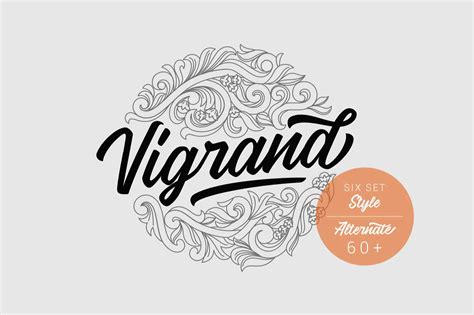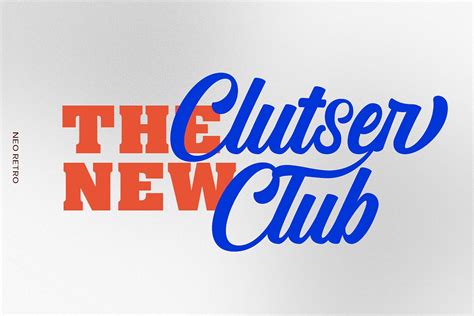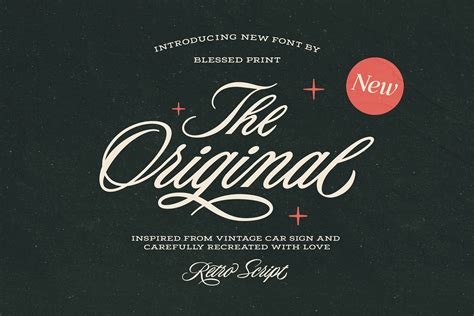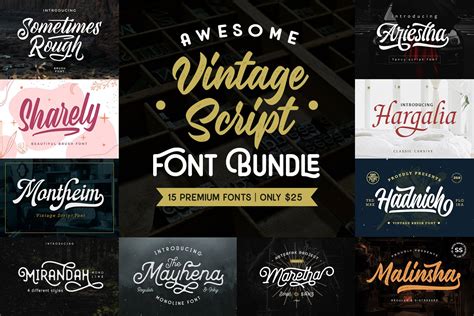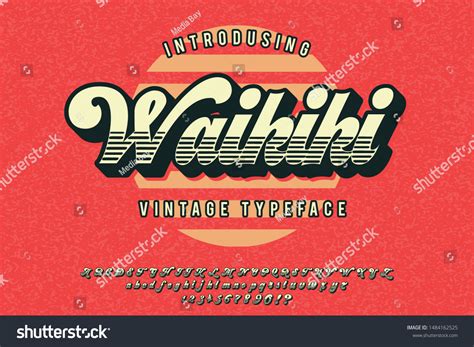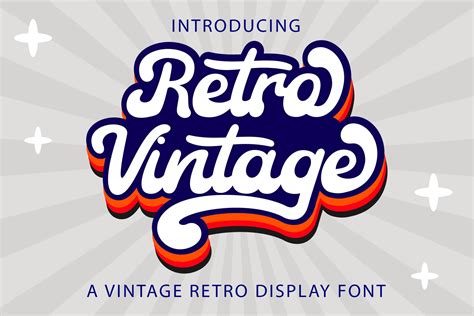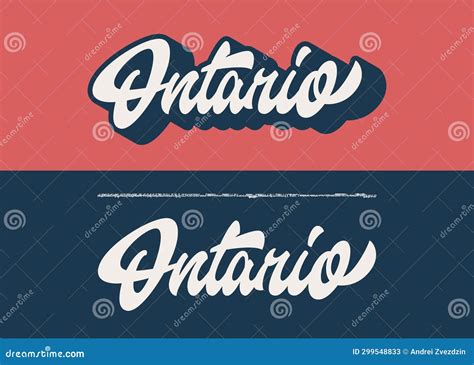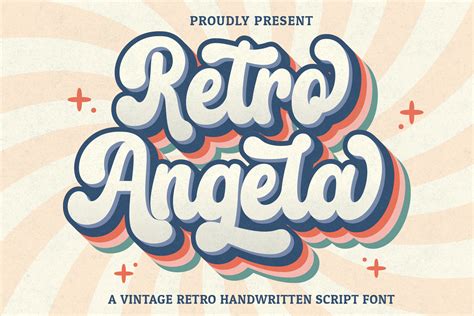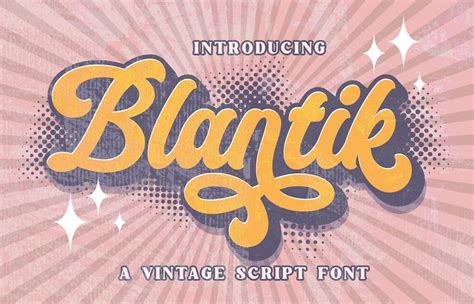
In the vast world of typography, few styles evoke the charm and elegance of a *vintage script font*. These fonts, inspired by the calligraphy and handwriting of bygone eras, bring a touch of nostalgia and sophistication to any design project. Whether you're creating a wedding invitation, a logo, or a vintage-inspired advertisement, a well-chosen vintage script font can add a unique and timeless appeal.
Understanding Vintage Script Fonts
Vintage script fonts are characterized by their fluid, handwritten appearance, often mimicking the styles of calligraphy from the 18th and 19th centuries. These fonts typically feature connected letters, varying stroke widths, and a natural, organic flow. They are often used to convey a sense of elegance, romance, and tradition.
There are several subcategories of vintage script fonts, each with its own unique characteristics:
- Copperplate Scripts: These fonts are inspired by the copperplate calligraphy style, which was popular in the 18th century. They feature thin, delicate strokes and a formal, elegant appearance.
- Spencerian Scripts: Named after Platt Rogers Spencer, who developed the style in the mid-19th century, these fonts are known for their fluid, cursive lines and are often used for formal invitations and certificates.
- Brush Scripts: These fonts mimic the look of hand-lettering with a brush, featuring thick and thin strokes and a more casual, informal appearance.
- Blackletter Scripts: Inspired by medieval calligraphy, these fonts have a bold, dramatic look with thick, heavy strokes and intricate details.
Choosing the Right Vintage Script Font
Selecting the perfect vintage script font depends on the specific needs of your project. Here are some factors to consider:
- Legibility: Ensure that the font is easy to read, especially if it will be used in large bodies of text. Some vintage script fonts can be challenging to read, so it's important to choose one that balances style and legibility.
- Style and Aesthetic: Consider the overall aesthetic of your project. A vintage script font should complement the design elements and enhance the overall look and feel.
- Versatility: Choose a font that can be used in various contexts, from headings and logos to body text and invitations. A versatile font will save you time and effort in the long run.
Here is a table to help you compare some popular vintage script fonts:
| Font Name | Style | Best Used For |
|---|---|---|
| Great Vibes | Brush Script | Wedding Invitations, Logos |
| Allura | Copperplate Script | Formal Invitations, Certificates |
| Satisfy | Brush Script | Hand-lettered Designs, Quotes |
| Dancing Script | Brush Script | Casual Invitations, Headings |
| Lobster | Brush Script | Vintage Advertisements, Posters |
Using Vintage Script Fonts in Design Projects
Vintage script fonts can be used in a variety of design projects to add a touch of elegance and nostalgia. Here are some popular applications:
- Wedding Invitations: A vintage script font can make your wedding invitations look timeless and elegant. Choose a font that complements the overall theme of your wedding, whether it's classic, rustic, or romantic.
- Logos: For businesses that want to convey a sense of tradition and sophistication, a vintage script font can be an excellent choice for a logo. It can help create a strong brand identity and make your business stand out.
- Advertisements: Vintage script fonts are perfect for creating retro-inspired advertisements. They can add a nostalgic touch to your marketing materials and make them more memorable.
- Hand-lettered Designs: If you're creating hand-lettered designs, a vintage script font can help you achieve a more authentic, hand-drawn look. It can be used for quotes, posters, and other decorative elements.
When using a vintage script font in your design projects, it's important to consider the following tips:
- Pairing Fonts: Vintage script fonts often work best when paired with a complementary font. Choose a font that contrasts with the script font in terms of style and weight. For example, a bold, sans-serif font can provide a modern contrast to a delicate, vintage script font.
- Color and Texture: Experiment with different colors and textures to enhance the vintage look. Consider using muted, earthy tones and adding textures like paper grains or distressed effects.
- Spacing and Alignment: Pay attention to letter spacing and alignment to ensure that your text is easy to read. Vintage script fonts can sometimes be challenging to align, so take the time to adjust the spacing and alignment as needed.
💡 Note: Always preview your design in different sizes and formats to ensure that the vintage script font remains legible and visually appealing.
Creating Custom Vintage Script Fonts
If you can't find the perfect vintage script font for your project, you might consider creating a custom font. This allows you to tailor the design to your specific needs and ensure that it perfectly matches your vision. Here are the steps to create a custom vintage script font:
- Sketch Your Design: Start by sketching your design on paper. Experiment with different letterforms, stroke widths, and styles to find the look that best suits your project.
- Digitize Your Sketch: Use a vector graphics program like Adobe Illustrator or Inkscape to digitize your sketch. This will allow you to create clean, scalable vector paths for each letter.
- Refine Your Design: Refine your design by adjusting the curves, strokes, and spacing. Pay attention to the details and ensure that each letter is consistent and well-proportioned.
- Generate Font Files: Use a font creation software like FontForge or Glyphs to generate font files from your vector paths. This will allow you to create a font that can be used in various design applications.
- Test and Adjust: Test your font in different sizes and formats to ensure that it is legible and visually appealing. Make any necessary adjustments to improve the overall quality of the font.
💡 Note: Creating a custom font requires a good understanding of typography and font creation software. If you're new to font design, consider taking a course or tutorial to learn the basics.
Creating a custom vintage script font can be a time-consuming process, but the results can be well worth the effort. A custom font allows you to create a unique and distinctive look that sets your project apart from the rest.
![]()
Incorporating Vintage Script Fonts into Digital Designs
In the digital age, vintage script fonts can be used to create stunning web designs, social media graphics, and digital advertisements. Here are some tips for incorporating vintage script fonts into your digital designs:
- Web Design: Use vintage script fonts for headings, logos, and decorative elements on your website. Ensure that the font is legible and accessible on all devices and screen sizes.
- Social Media Graphics: Create eye-catching graphics for social media using vintage script fonts. These fonts can add a touch of elegance and nostalgia to your posts, making them more engaging and shareable.
- Digital Advertisements: Use vintage script fonts in your digital advertisements to create a retro-inspired look. These fonts can help your ads stand out and capture the attention of your audience.
When using vintage script fonts in digital designs, it's important to consider the following tips:
- Responsive Design: Ensure that your design is responsive and looks good on all devices and screen sizes. Vintage script fonts can sometimes be challenging to read on smaller screens, so adjust the font size and spacing as needed.
- Accessibility: Make sure that your design is accessible to all users, including those with visual impairments. Use high-contrast colors and provide alternative text for images and graphics.
- Performance: Optimize your design for performance by using web-safe fonts and minimizing the use of custom fonts. This will help ensure that your design loads quickly and performs well on all devices.
💡 Note: Always test your digital designs on different devices and browsers to ensure that they are compatible and perform well.
Incorporating vintage script fonts into your digital designs can add a unique and timeless appeal. Whether you're creating a website, social media graphics, or digital advertisements, these fonts can help you achieve a distinctive and memorable look.
Vintage script fonts are a versatile and elegant choice for any design project. Whether you're creating a wedding invitation, a logo, or a digital advertisement, these fonts can add a touch of nostalgia and sophistication. By understanding the different styles of vintage script fonts and how to use them effectively, you can create stunning designs that stand out and capture the attention of your audience.
From choosing the right font to creating custom designs, incorporating vintage script fonts into your projects can be a rewarding and creative process. With the right tools and techniques, you can achieve a unique and timeless look that sets your designs apart from the rest.